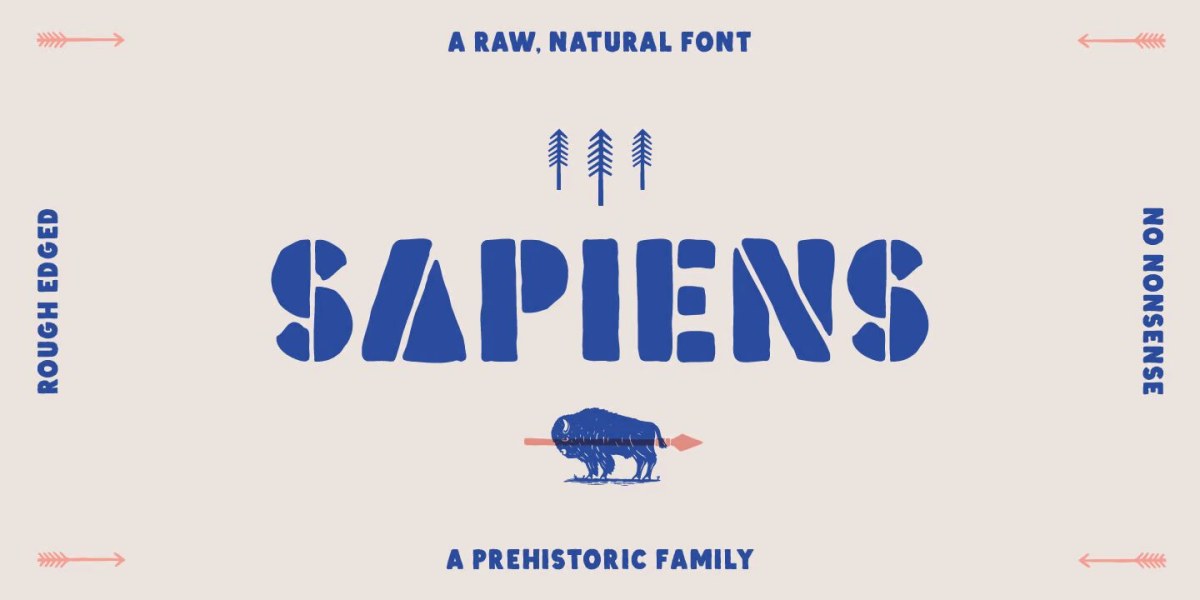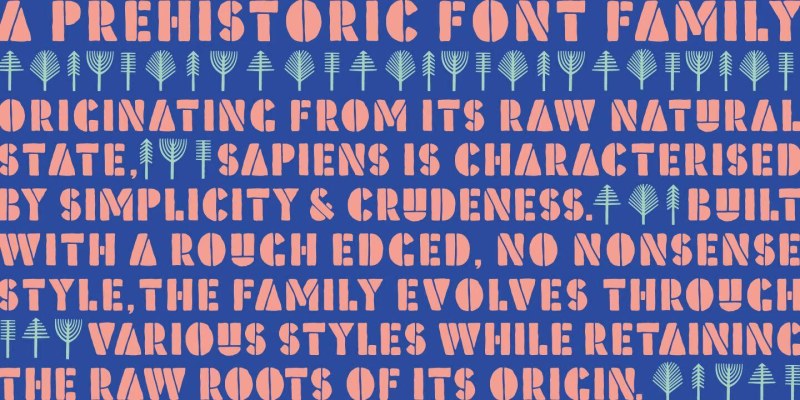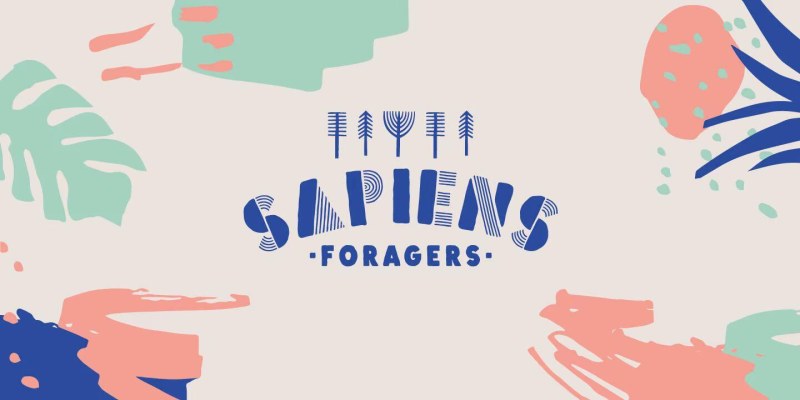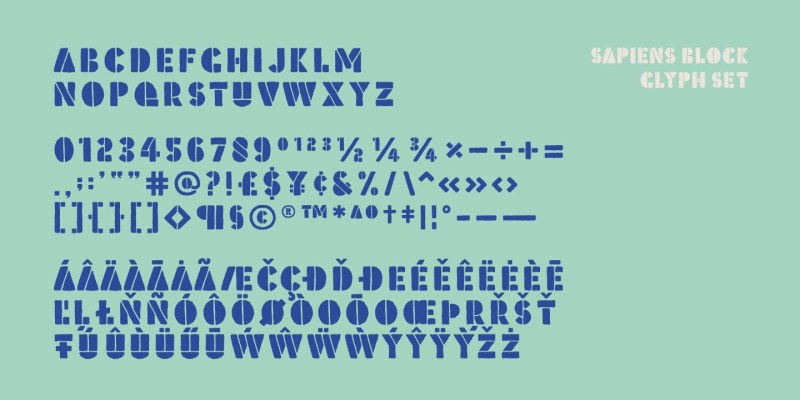
Sapiens Font Family
Sapiens is a prehistoric font family characterised by simplicity & crudeness, as if carved out and assembled by our sapiens ancestors. The family is built with a rough edged style that evolves through various styles and becomes more legible while retaining the raw roots of its origins.
Sapiens Font Family is a Font Family font that brings a professional and versatile look to your projects. Sapiens is a prehistoric font family characterised by simplicity & crudeness, as if carved out and assembled by our sapiens ancestors.